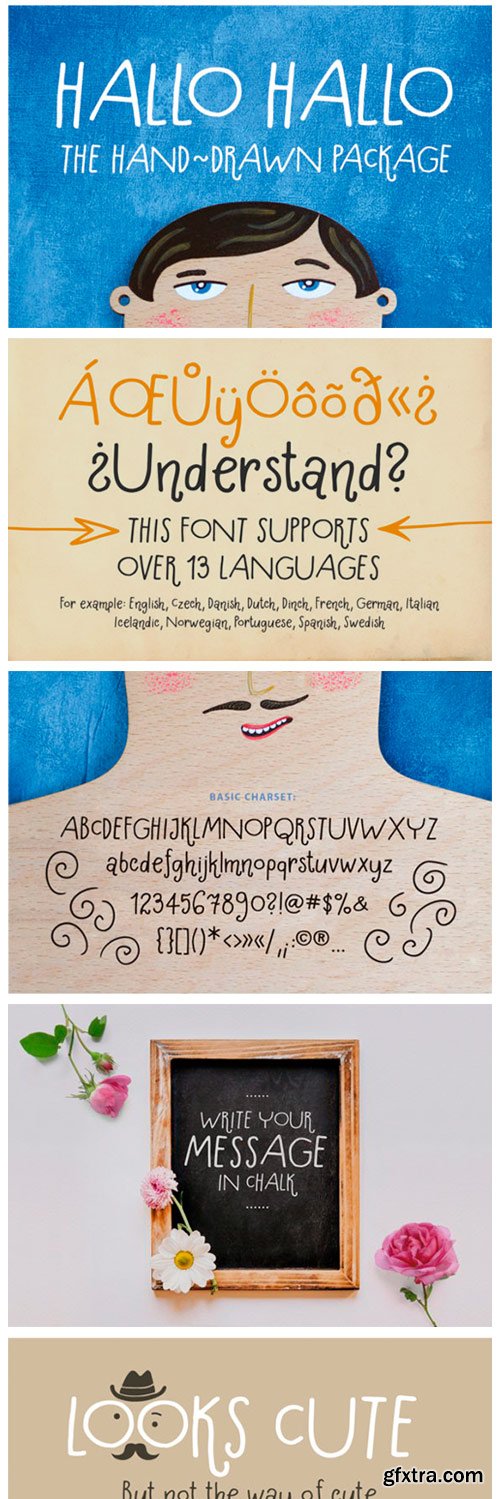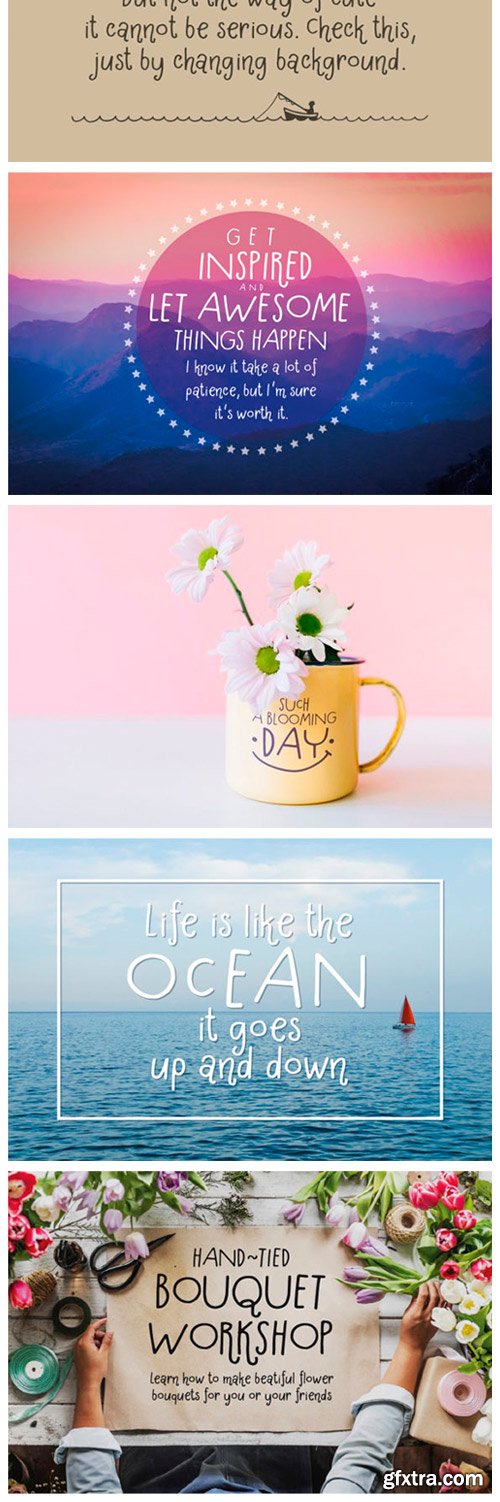
Hallo Hallo Font
Hallo Hallo is a simple and neat lettered handwritten font. Its natural and unique style makes it incredibly fitting to a large pool of designs.